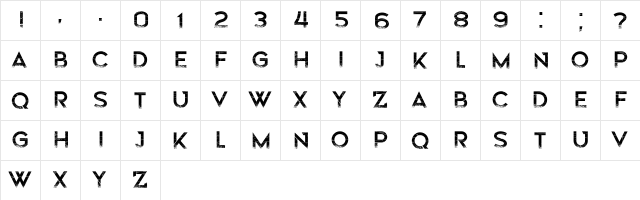
Flipside Regular
Design Context for Flipside Typeface
Flipside takes a measured approach to typography — its balanced proportions and neutral character make it a reliable workhorse for both digital and print work.